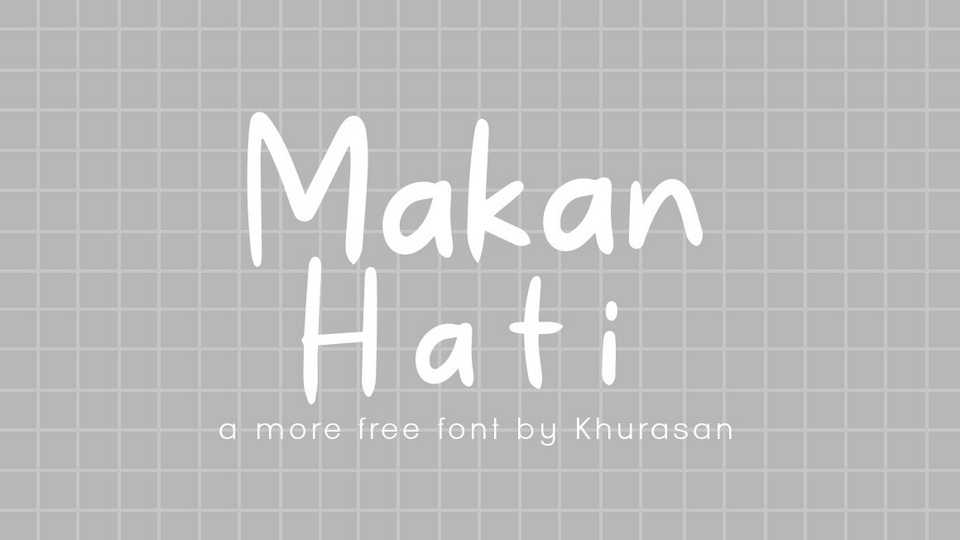
Download Makan Hati font, a natural and simple handwritten typeface. Makan Hati is perfect for posters, logos, magazines, book covers, banners, and many more.